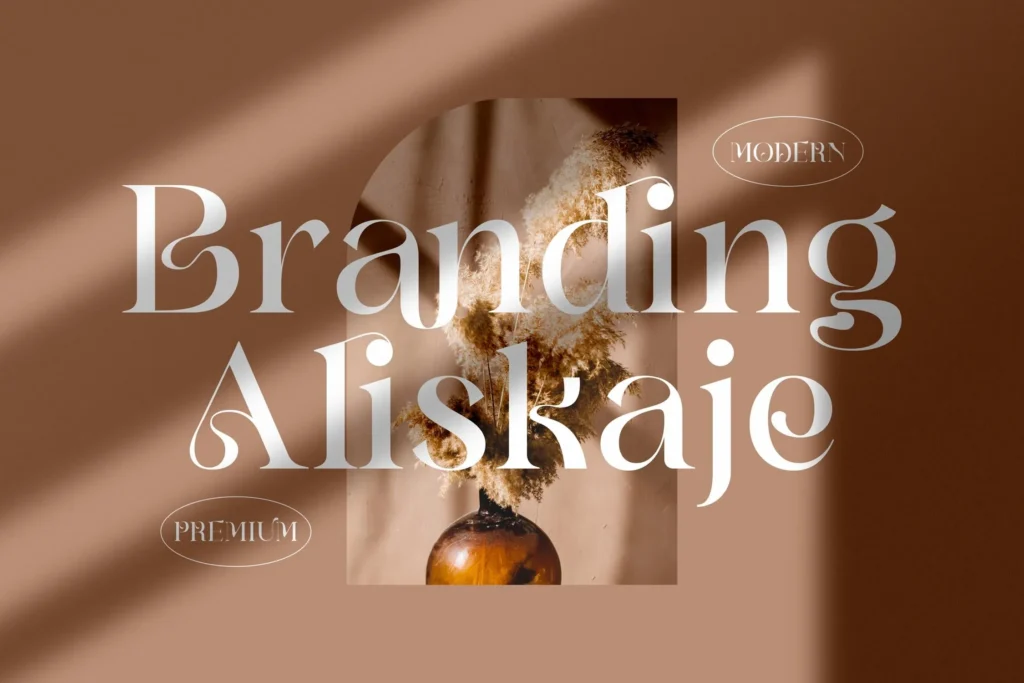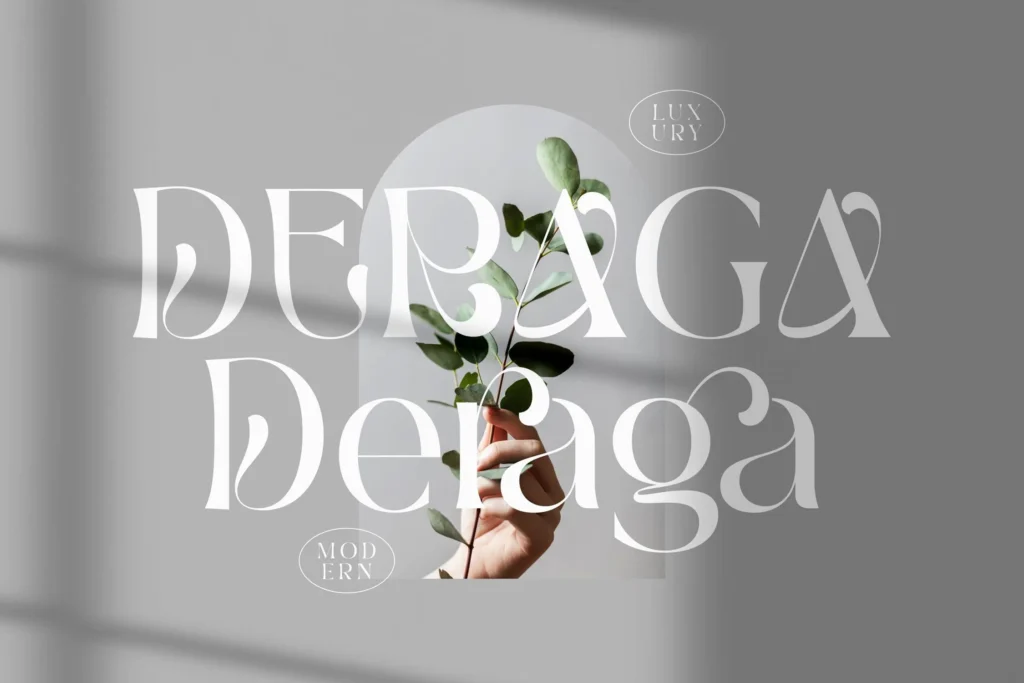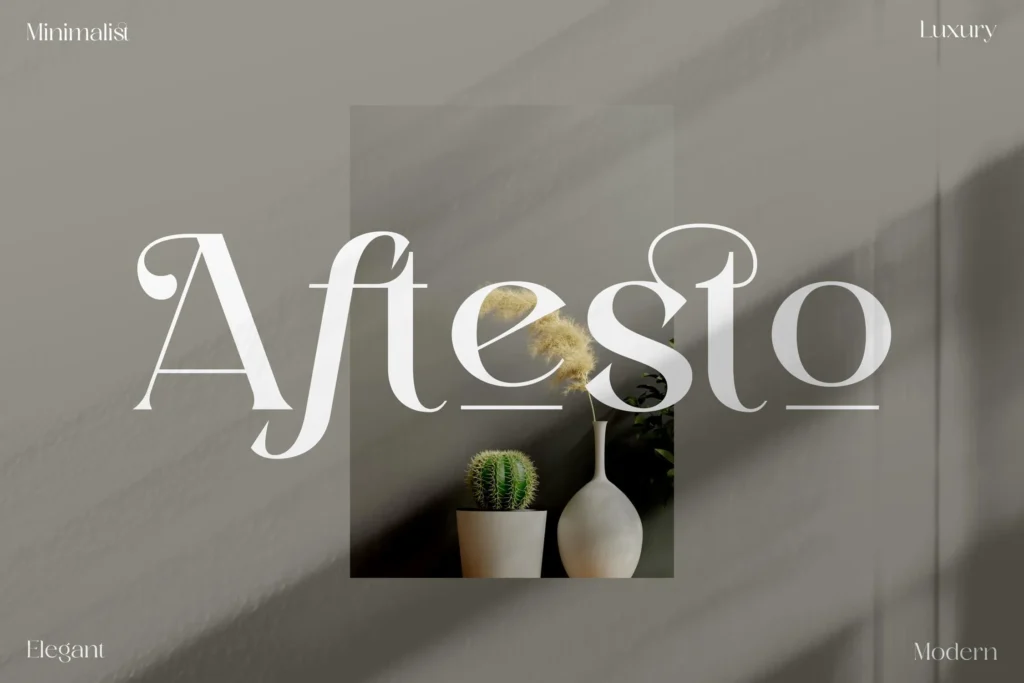
Mega Bundle | 50 Modern & Classy Fonts
from Storytype Studio
This bundle is perfect for
BRANDING and LOGO DESIGN
. As experienced graphic designers we’re often asked for unique logos with a classy aesthetic, which this bundle provides! You will get unique, classy & elegant products to make your branding and design projects stand out.